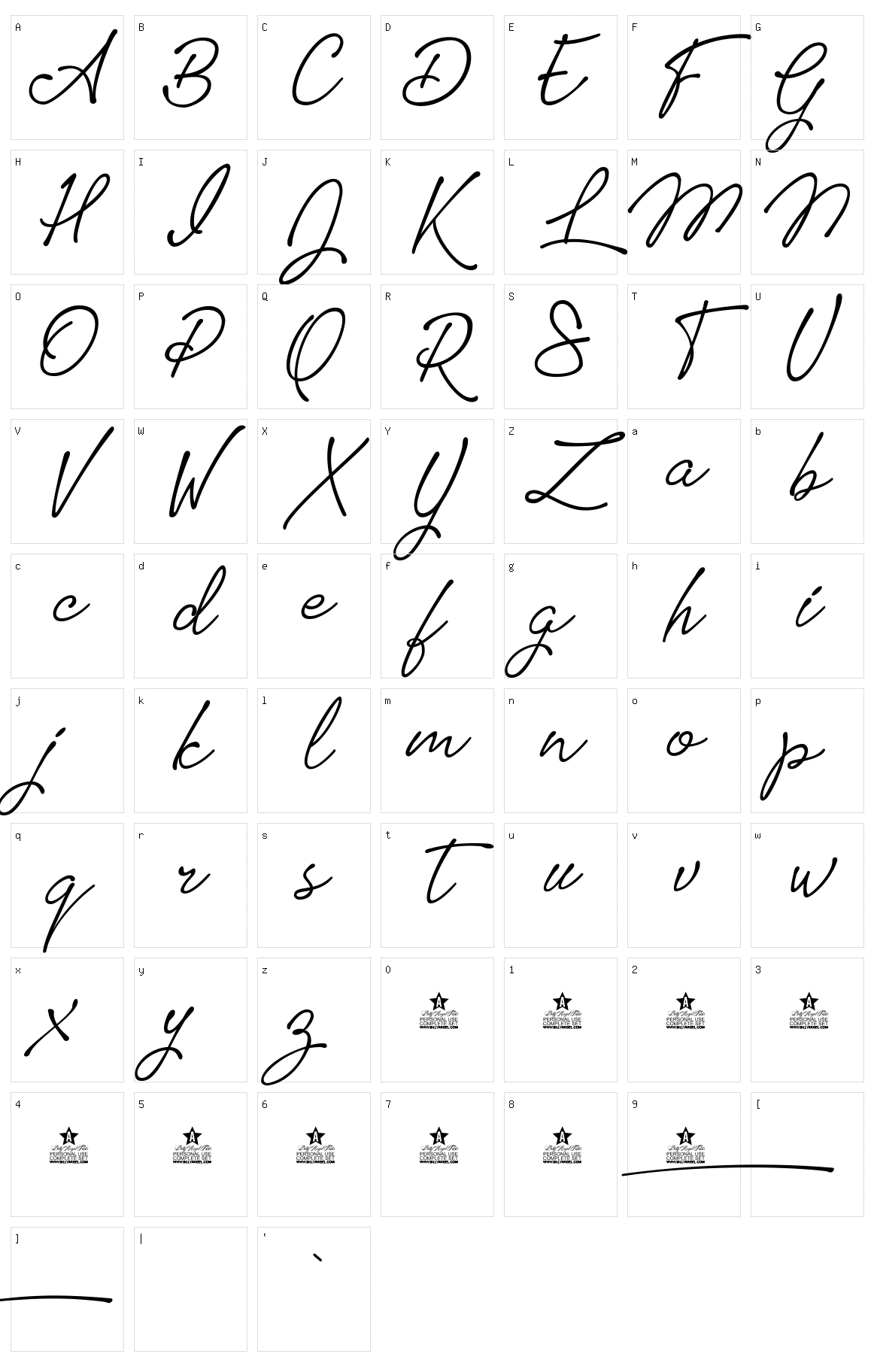
The free font Tomatoes is carefully designed by Billy Argel Fonts ?, showcasing a thoughtful balance of creativity and usability and falls under the Script font style. When you download the ZIP file, it contains only 84.84 KB of font files, making it lightweight and quick to download. Please review the license details below to understand permitted usage and distribution rights. If license information is not available, we recommend using this font for personal projects only or contacting the author directly for commercial usage permissions.